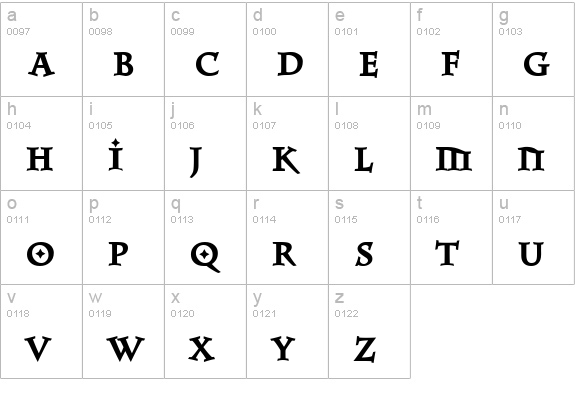
Parish Heavy Font Details
Parish Heavy is a heavy, high-impact variant in the Parish typeface family \xE2\x80\x94 well suited to high-impact headlines, posters, and display advertising.
Parish Heavy - a bold and powerful font that grabs attention and makes a statement. With its strong and impactful letterforms, this font demands to be noticed. Perfect for headlines, titles, and logos, Parish Heavy adds a touch of authority and strength to any design project. What sets Parish Heavy apart is its versatility. Whether you're designing a vintage-inspired poster, a modern website, or a sleek magazine spread, this font is sure to elevate your work to new heights. Its clean lines and balanced proportions make for a visually pleasing and professional appearance. But what makes Parish Heavy even more appealing is that it is free. That's right, you can freely download this remarkable font at FontsMarket.com. Say goodbye to expensive licensing fees and limited options, Parish Heavy gives you the freedom to use it in any personal or commercial project without breaking the bank. Designed with meticulous attention to detail, Parish Heavy offers a wide range of characters and glyphs, making it suitable for multiple languages and typographic needs. Its bold and distinctive aesthetic will leave a lasting impression on your audience, ensuring that your message is conveyed with impact and clarity. So why wait? Download Parish Heavy today and explore the endless possibilities it offers. Whether you're a seasoned designer or just starting out, this font will empower you to create stunning designs that demand attention. Experience the freedom and versatility of Parish Heavy, and take your creative endeavors to the next level.